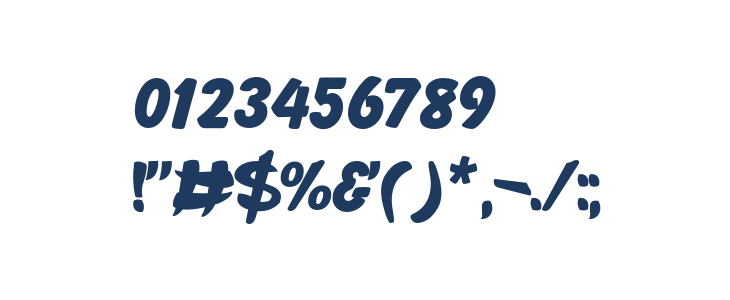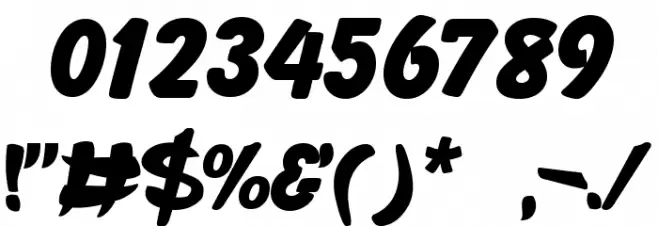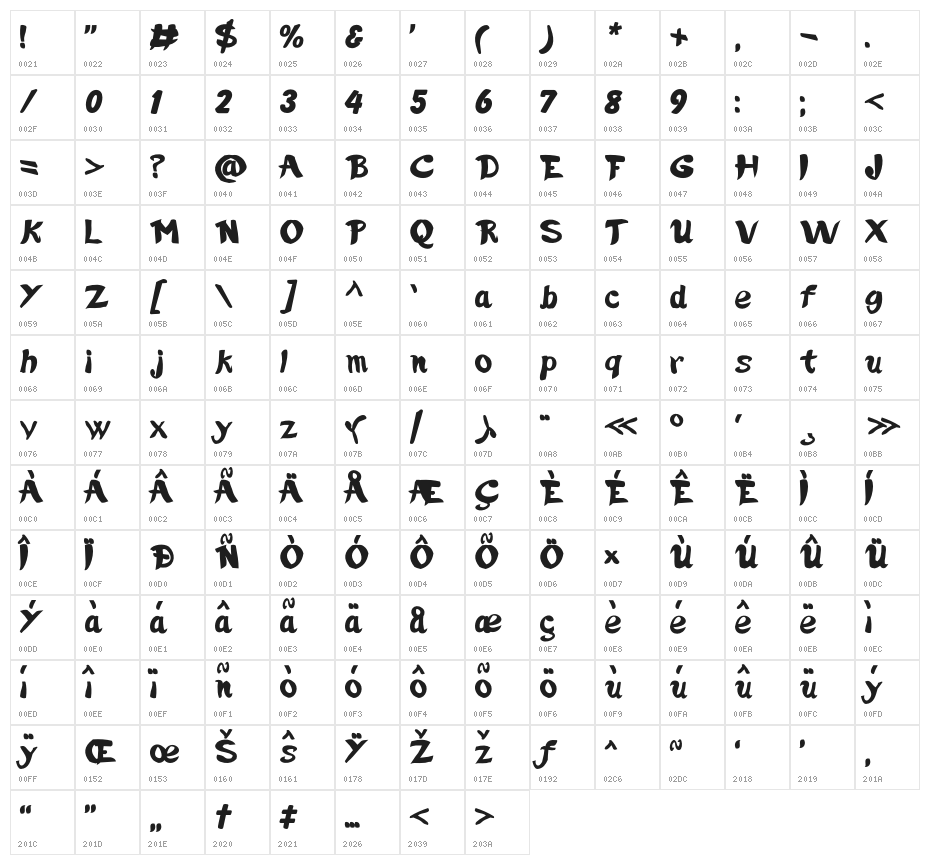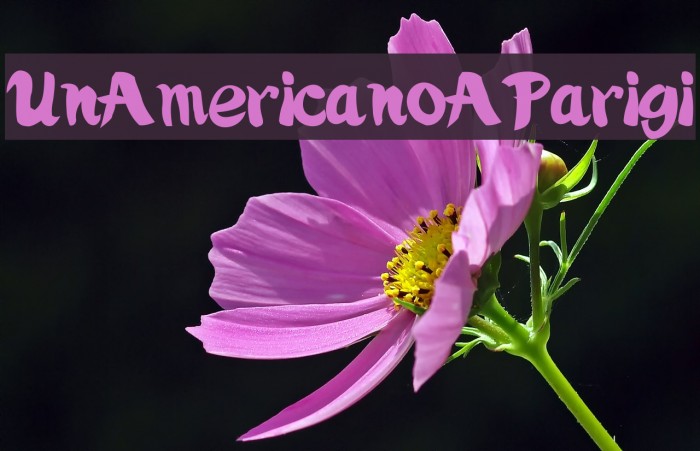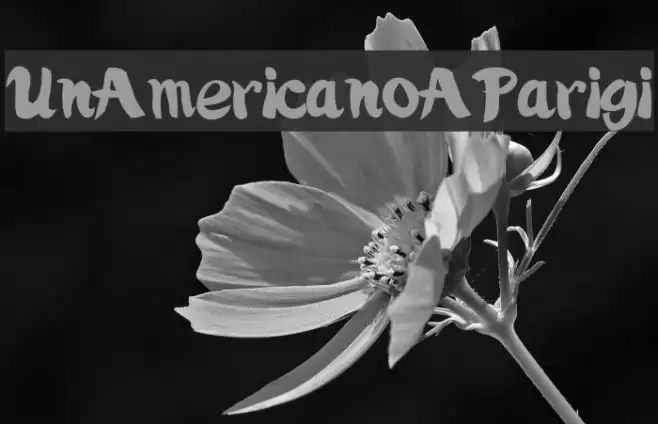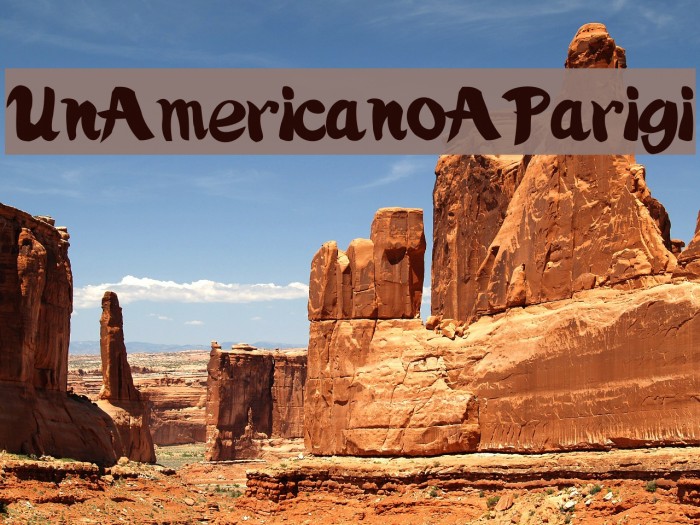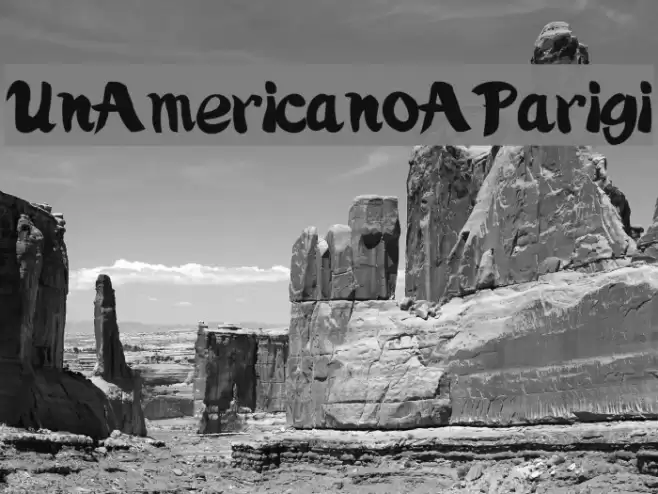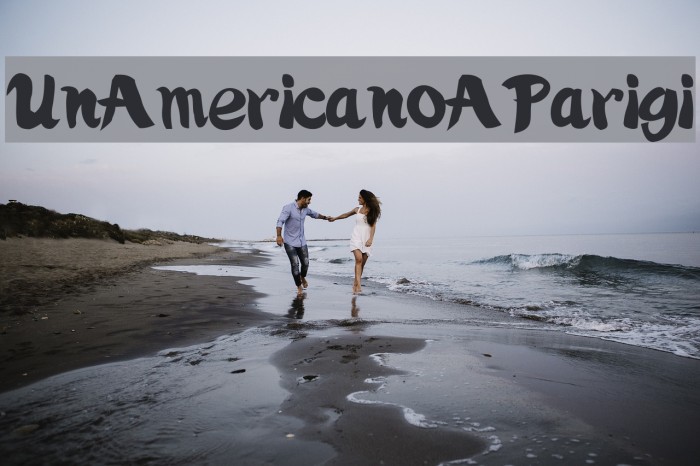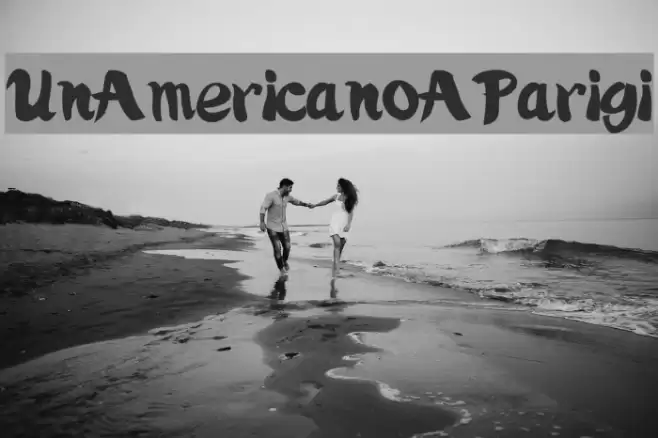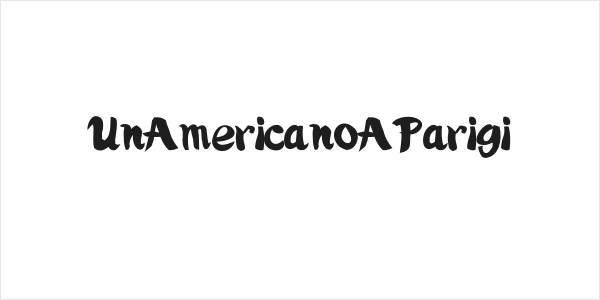
UnAmericanoAParigi Font
UnAmericanoAParigi Description
This font features a bold and dynamic style with a playful, handwritten appearance. The characters are slightly slanted, giving them a sense of movement and energy. The strokes are thick and vary in width, adding to the font's lively and informal feel. The uppercase letters are bold and prominent, while the lowercase letters maintain a consistent flow. Numbers and special characters are designed to match the overall energetic style, making this font suitable for creative and expressive projects.
| Proposed Projects | Ideal for posters, greeting cards, children's books, and branding that requires a fun and energetic vibe. |